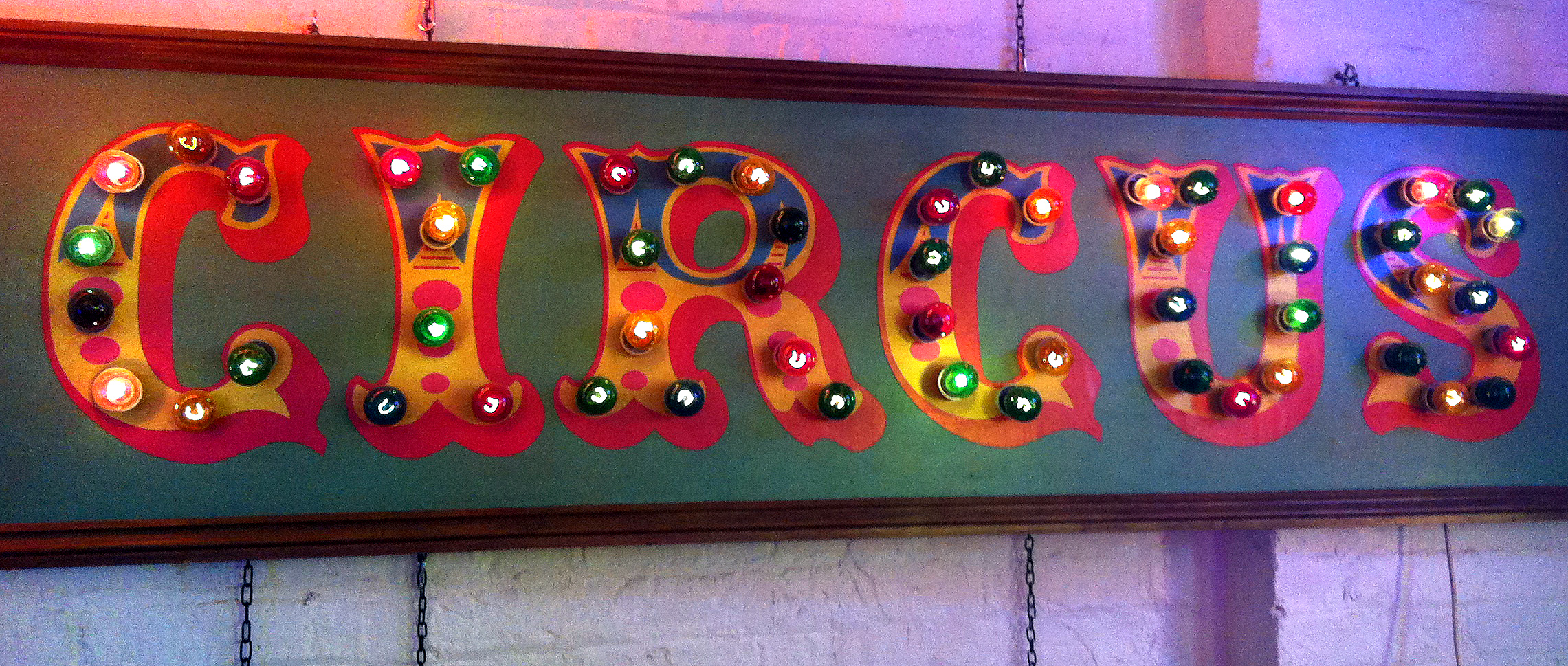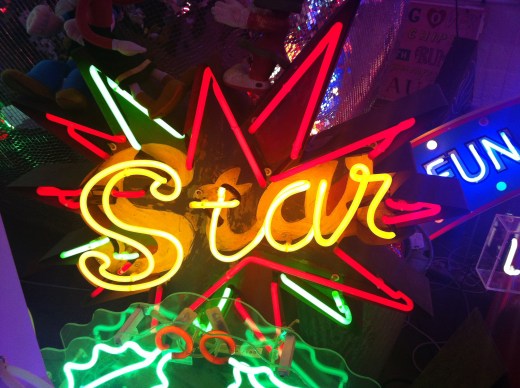
An envy of neon
An envy of neon from the recent sign painting social to God’s Own Junkyard, Chris Bracey’s neon sign museum in London E17.
Curvaceious Candice (typeface by Alan Meeks)
Two versions of Circus (typeface by Dan Roseman), freestyle neon script and a flashing Elvis.